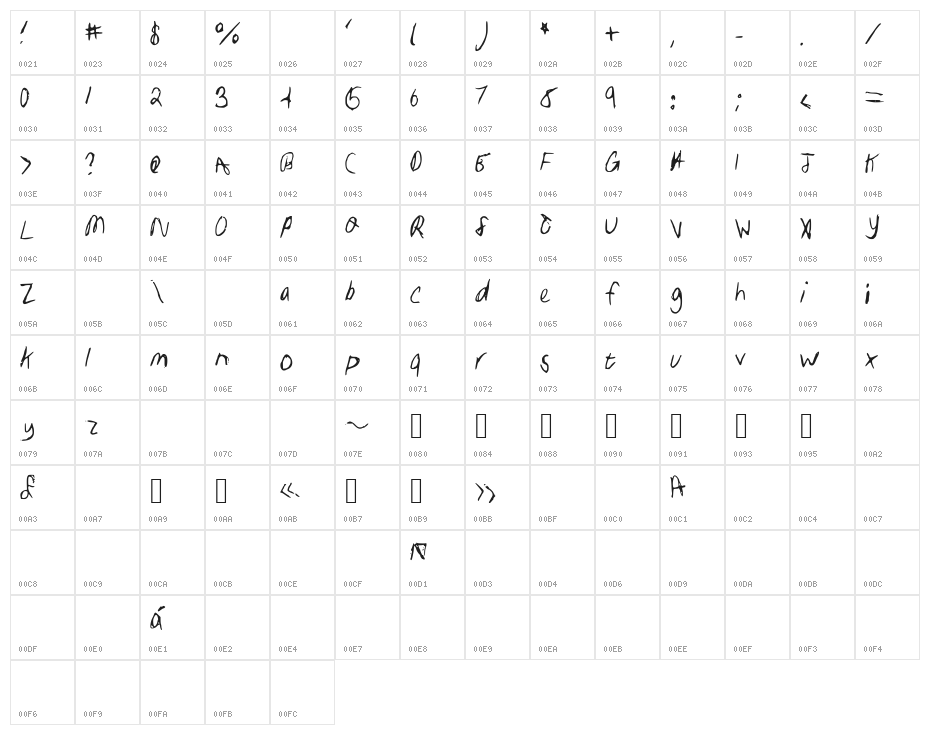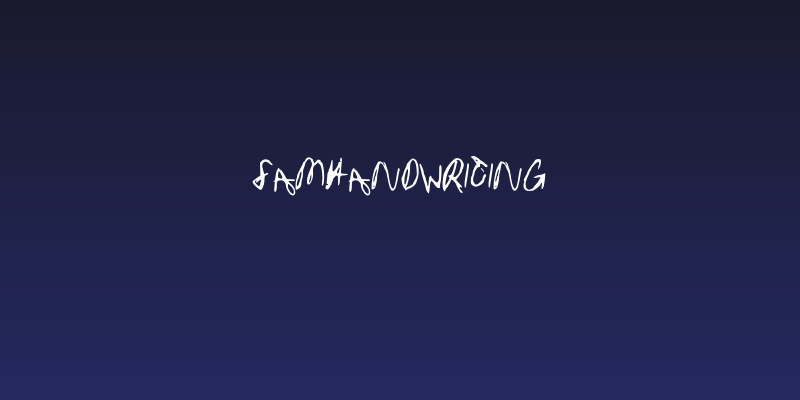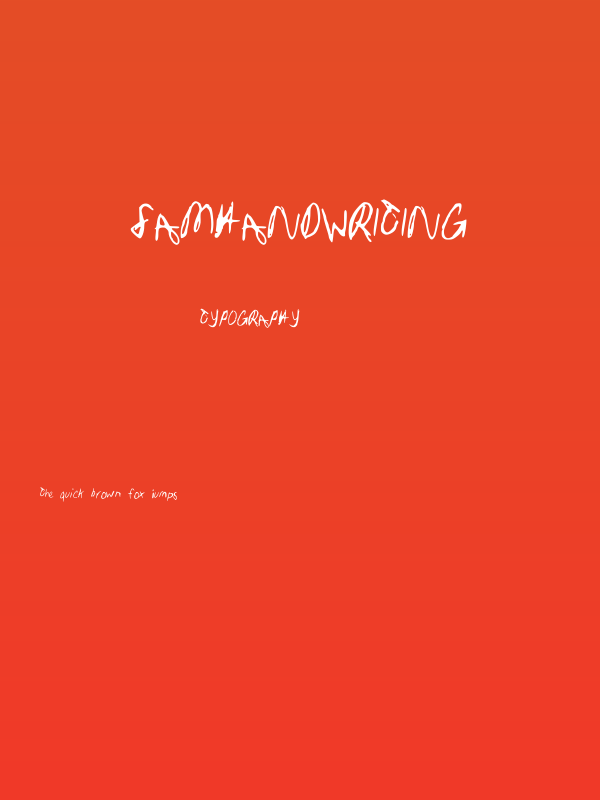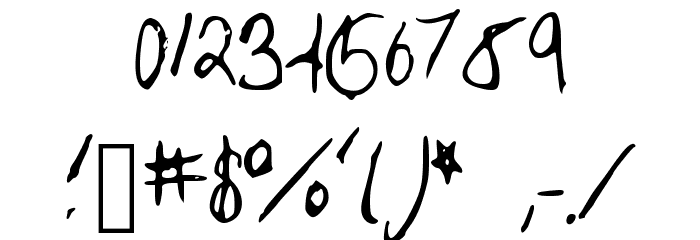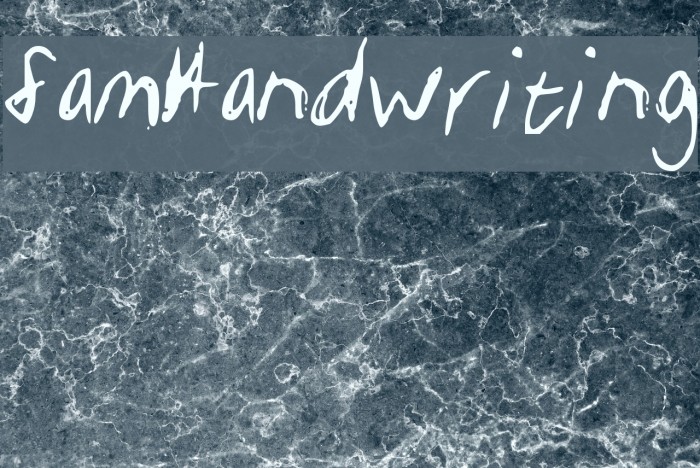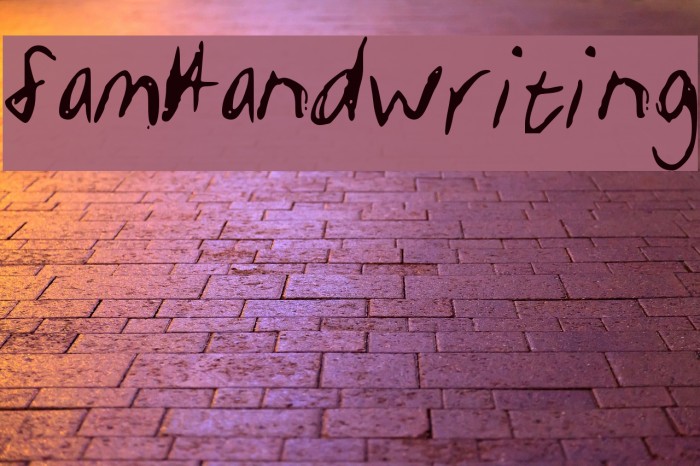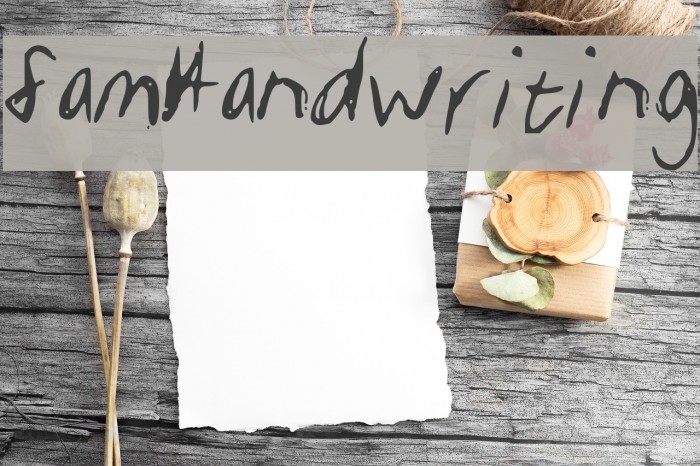
SamHandwriting Font
SamHandwriting Description
This font exudes a casual and personal touch, reminiscent of authentic handwriting. The characters are irregular and slightly slanted, with varying stroke thickness that adds to its organic feel. The uppercase letters are bold and prominent, while the lowercase letters maintain a consistent flow, enhancing the handwritten aesthetic. Numbers and special characters are crafted with the same freeform style, making them blend seamlessly with the alphabet. This font captures the essence of spontaneity and creativity, perfect for projects that require a personal or informal tone.
SAMHANDWRITING UPPERCASE
SAMHANDWRITING LOWERCASE
SAMHANDWRITING OTHER CHARS